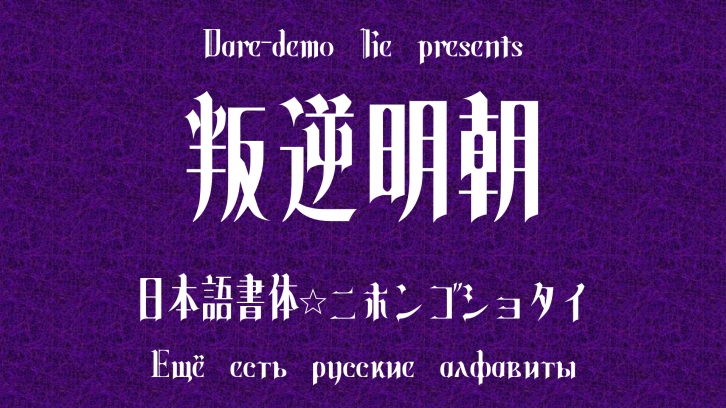
The typeface based on the logo of "Puella Magi Madoka Magica the film". You can type katakana, Madoka runes, some ideograms, a few hiragana by using this font.